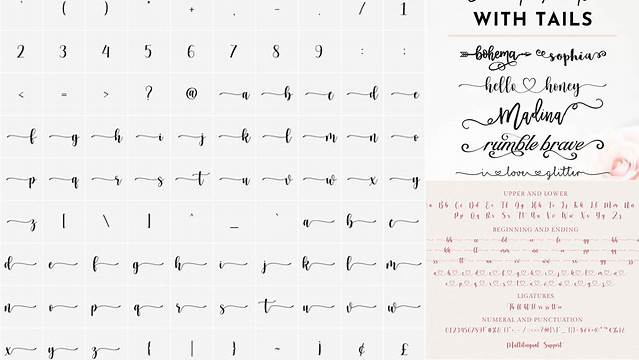
Hello Honey Font Tails & Cricut: Your Ultimate Guide!
Hey there, crafting enthusiasts! 👋 Ever been mesmerized by those adorable, whimsical designs? Ever wondered how to create them yourself? Well, if you're like me and love adding that extra touch of flair to your projects, you're in the right place! Today, we're diving deep into the enchanting world of the Hello Honey font tails and how to bring them to life using your trusty Cricut machine. We'll explore everything from finding the perfect font to mastering the Cricut techniques that will make your projects shine. Get ready to unleash your creativity and turn your crafting dreams into reality. Buckle up, because we're about to embark on a crafting adventure that will have you saying "Hello, Honey" to your new favorite projects! Let's get started, shall we?
1. Discovering the Magic of Hello Honey Font Tails
So, what exactly are Hello Honey font tails? Simply put, they are the delightful, playful flourishes that extend from the letters, adding a touch of elegance, whimsy, and personality to your designs. Think of them as the extra sprinkles on a cupcake – they elevate the overall look and make it even more special. The Hello Honey font, specifically, is known for its charming style and versatile tails, perfect for a variety of projects, from invitations and greeting cards to home decor and personalized gifts. The beauty of this font lies in its ability to transform ordinary text into something extraordinary. These tails are more than just decorations; they're a way to infuse your projects with a unique style and make them stand out from the crowd. Whether you're a seasoned crafter or just starting out, incorporating font tails can take your projects to the next level. It's a small detail that makes a big impact, adding a professional touch that will impress your friends, family, and customers (if you're selling your creations!). Imagine the possibilities – personalized mugs, custom t-shirts, eye-catching wall art, and so much more. The only limit is your imagination! The versatility of the Hello Honey font tails is truly remarkable. You can use them to create a cohesive and visually appealing design across multiple projects. The flowing lines and elegant curves of the tails can add a touch of sophistication or a playful element, depending on your needs. For example, for a wedding invitation, you can use delicate, flowing tails to create a romantic atmosphere. On the other hand, for a birthday card, you can use more playful and whimsical tails to create a festive mood. Mastering the art of working with font tails is like learning a new language. With a little practice and experimentation, you'll become fluent in the art of creating stunning designs that capture the attention of anyone who sees them. So, let's dive deeper and learn how to use the Hello Honey font, its tails, and see all the magic it can do!
2. Where to Find the Hello Honey Font & Its Tails
Alright, so you're eager to get your hands on this amazing font and its enchanting tails, right? The good news is, finding the Hello Honey font is easier than you might think! Several online platforms offer this delightful font, often bundled with various styles and variations to suit your creative needs. One of the most popular places to find fonts is Creative Market, where independent designers and font creators showcase their work. You can often find the Hello Honey font and its accompanying tails available for purchase or as part of a larger font bundle. This is a great option, especially if you are looking to expand your font library with other amazing fonts. Another great place to explore is Etsy, a marketplace for handmade and digital goods. You can often find the Hello Honey font and its variations available from various sellers. This also gives you the chance to support independent artists and designers. Remember to always check the licensing terms before downloading and using any font. Ensure that the license allows for the commercial use of the font, especially if you plan to create and sell projects using it. Look for options that include the tails and any other special characters or glyphs that add the extra flair. In some cases, the tails might be offered as separate elements (like SVG files) that you can import into your design software and attach to the letters. Be sure to choose a source that provides you with the font file in a format compatible with your Cricut design software – typically, this means the font will be available in .otf or .ttf format. These are standard formats that Cricut Design Space can readily recognize and use. Once you've found the perfect font and purchased it, you're one step closer to crafting magic! From there, you can then download the font files to your computer. From there, it's all about installing the font and getting ready to work your creative magic!
4. Importing and Using the Tails in Cricut Design Space
Once the Hello Honey font is installed, it's time to import and use the tails in Cricut Design Space. This is where the real fun begins! How you import the tails will depend on how they were provided when you purchased the font. If the font includes the tails as built-in characters (glyphs), you'll typically access them using the special character map in your operating system. This character map, sometimes called the Glyph panel, lets you view and insert all of the special characters included in the font, including the font tails. In Windows, you can find the Character Map by searching in the Start menu. In macOS, it's called the Character Viewer and can be accessed through the Edit menu in many applications. In Cricut Design Space, use the text tool to type your text, then switch to the Character Map or Character Viewer. Find the tail you like and copy it. Back in Design Space, paste the tail into your text. You may need to adjust the size and position of the tail to fit the design. If the tails are provided as separate SVG files, the process is slightly different. You'll need to upload each SVG file into Design Space. To do this, click the "Upload" button, then "Upload Image," and browse your computer for the SVG file. Once uploaded, insert the tail into your design. You can then resize and position the tail to connect it to the letter. Make sure that you attach all elements of your design. After placing your text, select both the text and the tail (or tails) and use the "Attach" feature (located in the bottom right corner of Design Space). This ensures that the tail will be cut correctly along with the text. If you don't attach them, the Cricut machine will cut each element separately, which won't be what you want. Experiment with different tail designs and positions to create unique looks. Don't be afraid to mix and match the tails to customize your projects. With a little practice, you'll be able to effortlessly incorporate font tails into your Cricut designs!
6. Designing with Hello Honey Font: Tips and Tricks
Designing with the Hello Honey font can be a truly delightful experience! To make the most of this charming font, here are some essential tips and tricks to help you create stunning projects. First and foremost, consider the overall layout and composition of your design. Think about how the font tails will interact with other design elements, such as images, shapes, and other text. Experiment with different arrangements to find what looks best. Don't be afraid to play with letter spacing and kerning to create a visually appealing design. Sometimes, slightly adjusting the spacing between letters can make a huge difference in the overall look of your project. Experiment with different sizes and scales. The Hello Honey font is incredibly versatile, so try scaling it up or down to fit the size of your project. Ensure the font size is readable, especially if your design includes long text. Consider the use of color and background. Choose colors that complement the font and other elements in your design. The right color palette can make the font and the tails stand out. The background can be plain or patterned, depending on the effect you're going for. Think about the mood you want to convey. The Hello Honey font has a very playful and friendly vibe, so consider the occasion and adjust your design to fit the mood. Create a cohesive design style. Decide on a specific look and feel for your project to maintain consistency. Use a consistent color palette, font sizes, and design elements across multiple projects to create a unique branding. Experiment with different combinations of font tails to create unique looks. Try overlapping the tails, creating different lengths, and adding embellishments. Be patient and take your time. Creating a great design takes time and effort. Don't be afraid to experiment and play around with different elements until you get the look you want. When using the tails, make sure to attach them to your letters in the Cricut Design Space to ensure they're cut correctly. This is a crucial step! If you are working with multiple layers or colors, consider grouping similar elements together to streamline the cutting process.
7. Cutting and Weeding Hello Honey Font Projects with Cricut
Cutting and weeding your Hello Honey font projects with your Cricut machine requires precision and patience, but the results are well worth the effort! Let's break down the steps involved. Before you start, make sure your design is finalized in Cricut Design Space, and that you have chosen the right materials and cutting settings for the project. Once everything is ready, load the material onto your Cricut cutting mat, ensuring that it's securely attached. This will prevent the material from shifting during the cutting process. When cutting, always select the appropriate material setting in Cricut Design Space. This will ensure that your Cricut machine uses the correct blade and pressure for a clean and accurate cut. After your Cricut machine has finished cutting, carefully remove the mat from the machine and gently peel away the excess material from around your design. The key here is to go slow and steady to avoid tearing the delicate tails. Use a weeding tool to carefully remove the excess material from your design. This is the process of removing the unwanted parts, leaving only the design itself. Be sure to use a weeding tool to remove the small pieces within the letters, such as the center of the letter